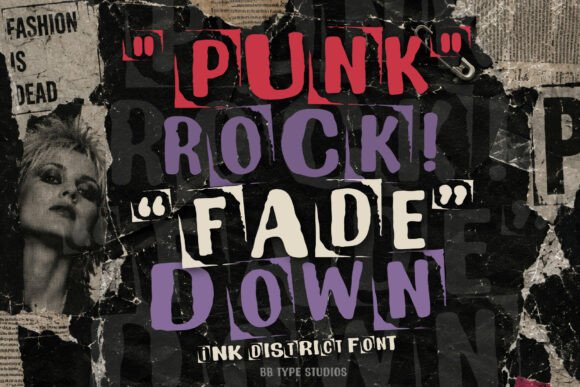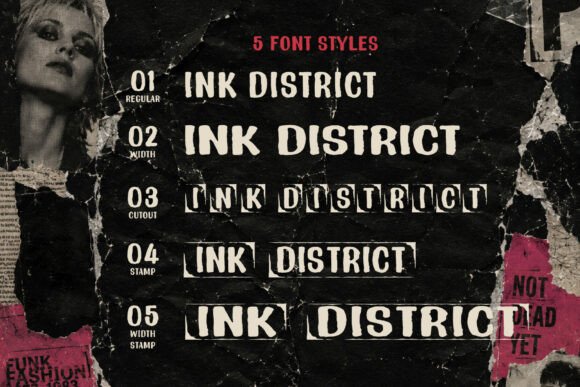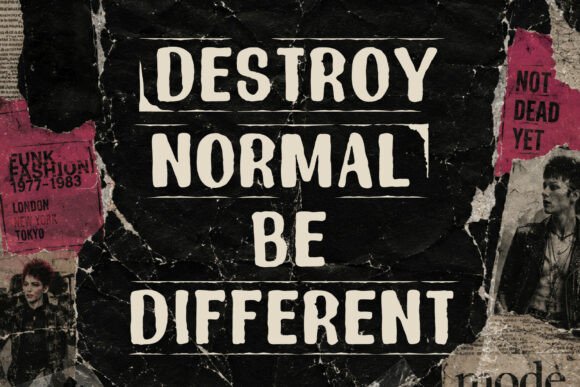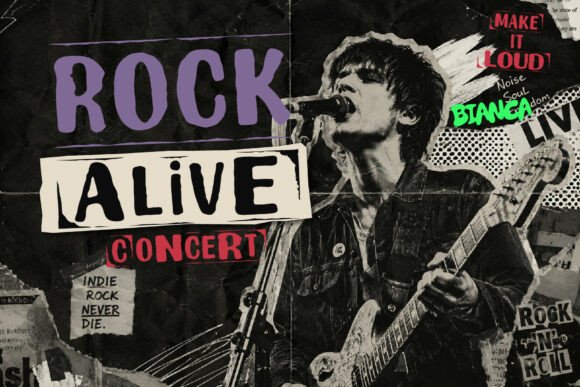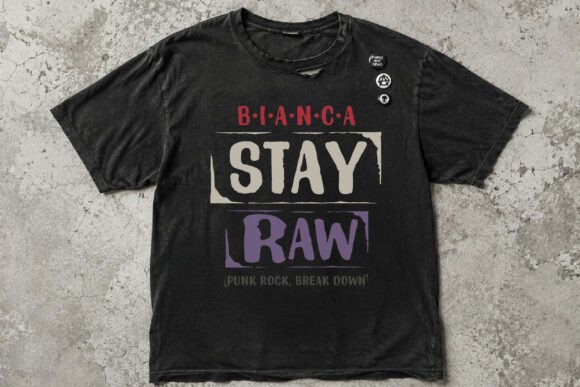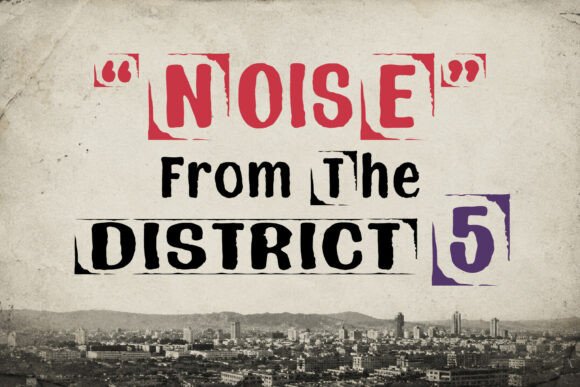
Introduction to Ink District Font
Unleash the spirit of rebellion with Ink District, a gritty font family engineered for the bold and the lawless.
This “Raw Type” collection captures the frantic energy of punk rock zines and DIY basement show posters Featuring five distinct styles, the typeface is characterized by its distressed, hand-inked edges and a restless, irregular rhythm that rejects perfection.